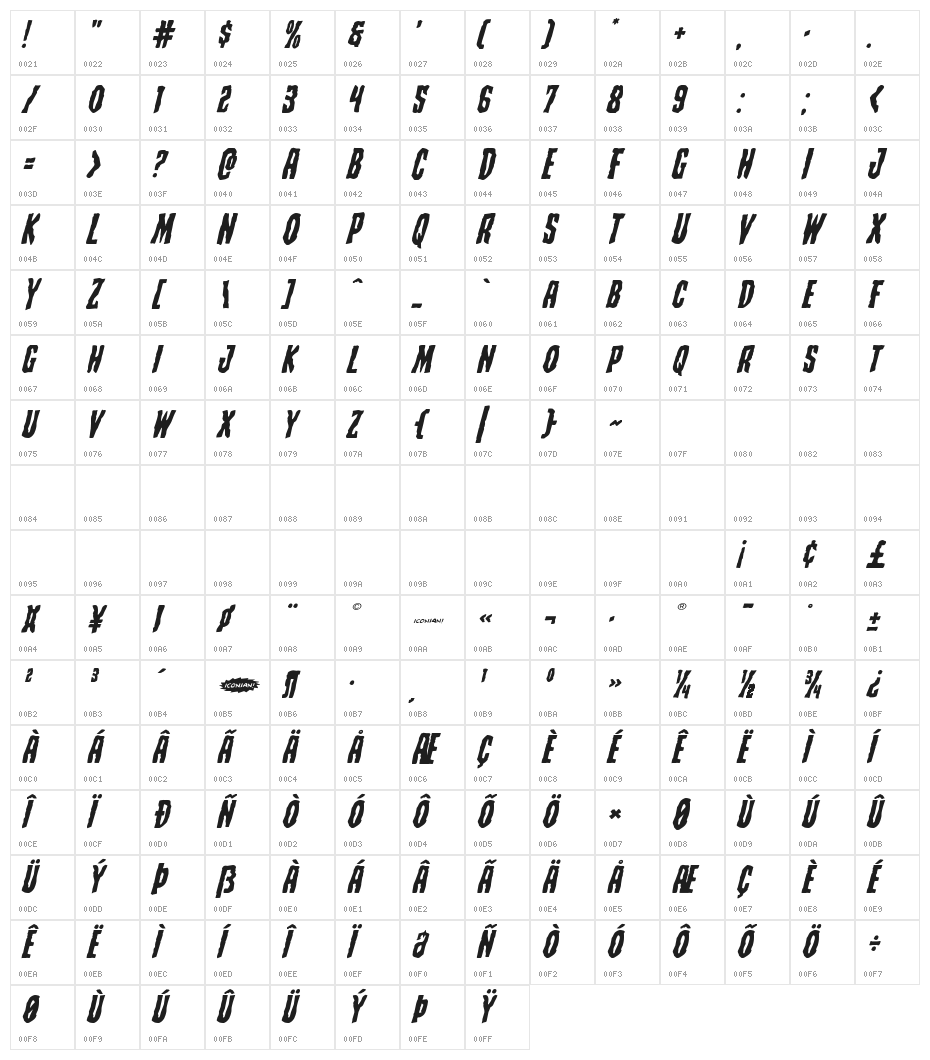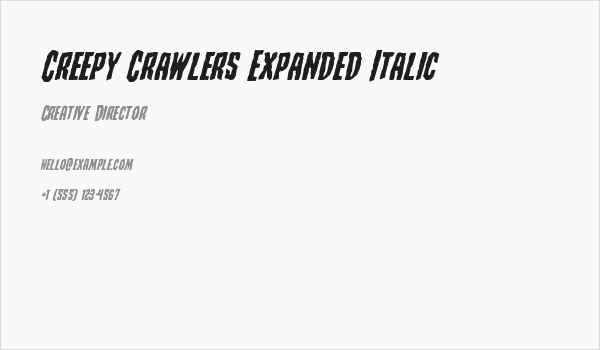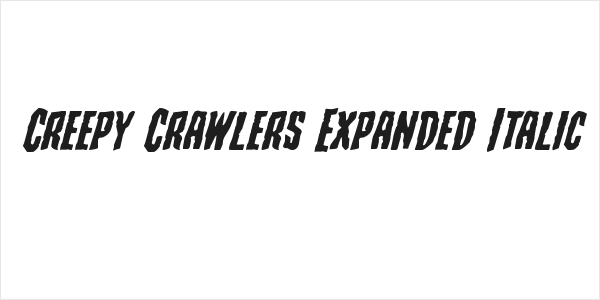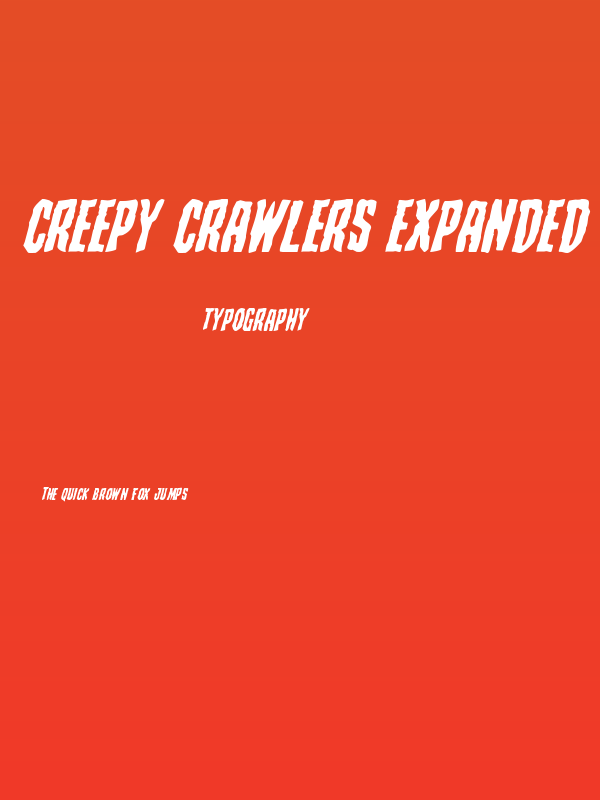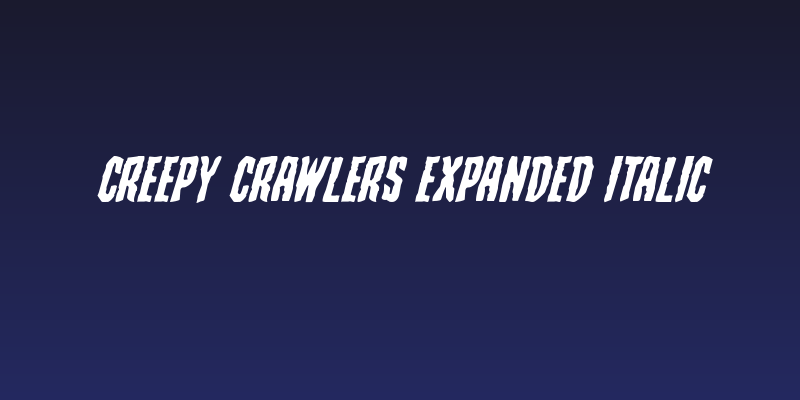
Creepy Crawlers Expanded Italic Font
Creepy Crawlers Expanded Italic Description
This font features a bold and dynamic design with an expanded and italicized style. The characters are heavily stylized, with jagged edges and a sense of movement, reminiscent of a horror or thriller theme. The uppercase and lowercase letters maintain a consistent style, with exaggerated curves and angles that give them a unique, eye-catching appearance. The numbers and special characters follow the same design principles, ensuring a cohesive look across all elements. The font's boldness and expanded width make it suitable for attention-grabbing headlines or thematic designs.
| Proposed Projects | Ideal for Halloween-themed posters, horror movie titles, spooky event invitations, and themed merchandise. |